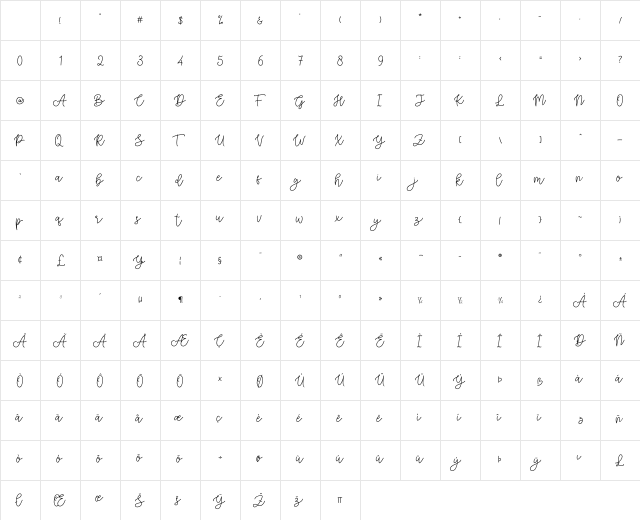
Complete Cattoms cute Regular glyph index. Displaying only characters natively supported by Cattoms cute Regular font.
Cattoms cute is a composed and adaptable typeface that performs quietly and consistently across a wide range of design contexts.
Who designed the Cattoms cute Regular font?